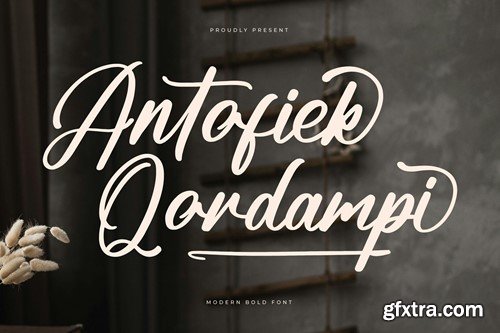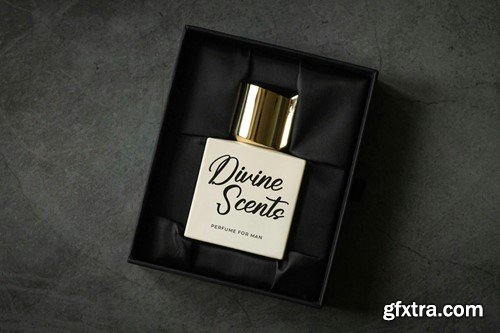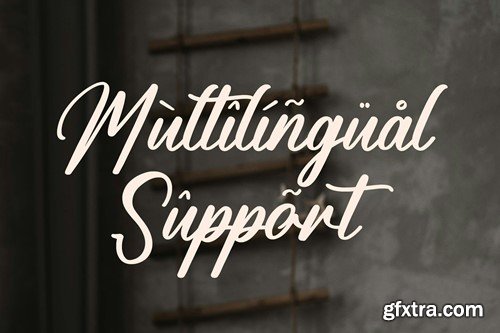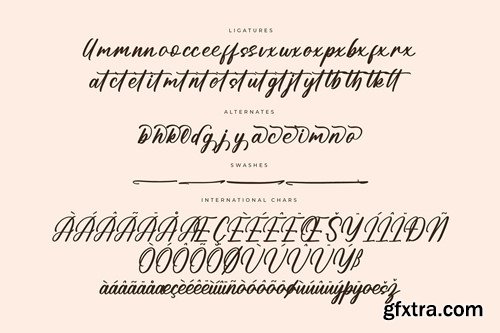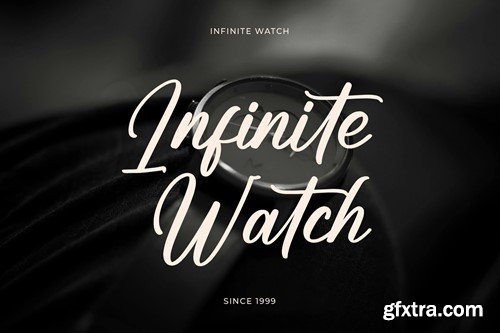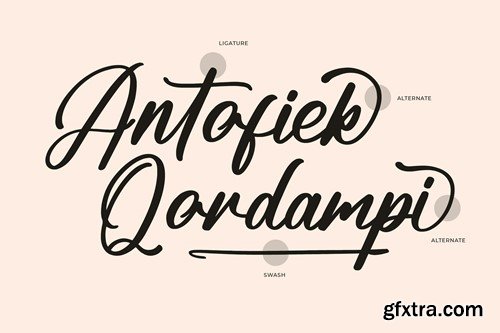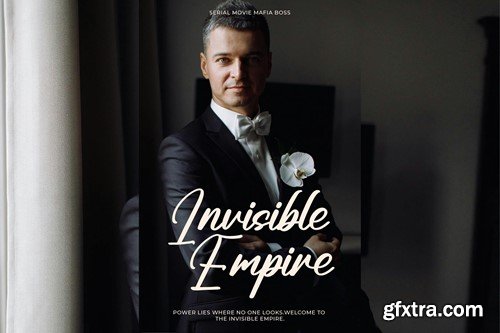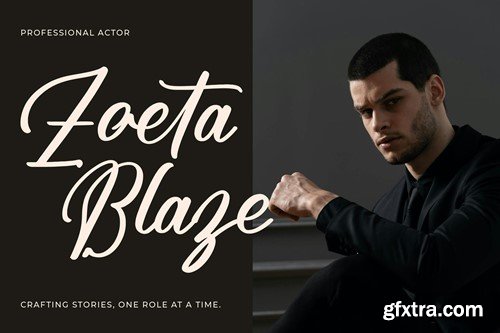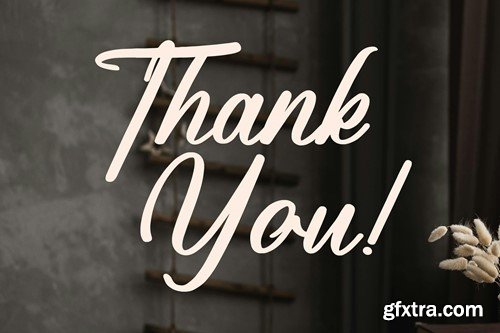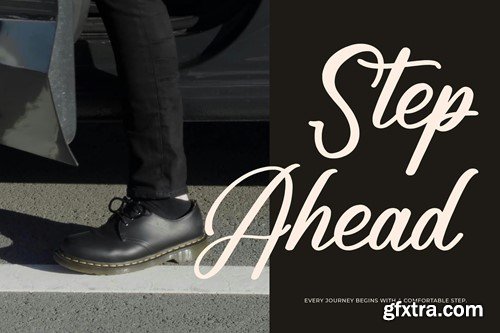
Antofiek Qordampi Modern Script Bold Font
Hi ladies & gentlemen, this is one of our fonts suitable to complement your digital and printed creative products. This font is perfect for posters, social media posts, branding, personal projects, etc.